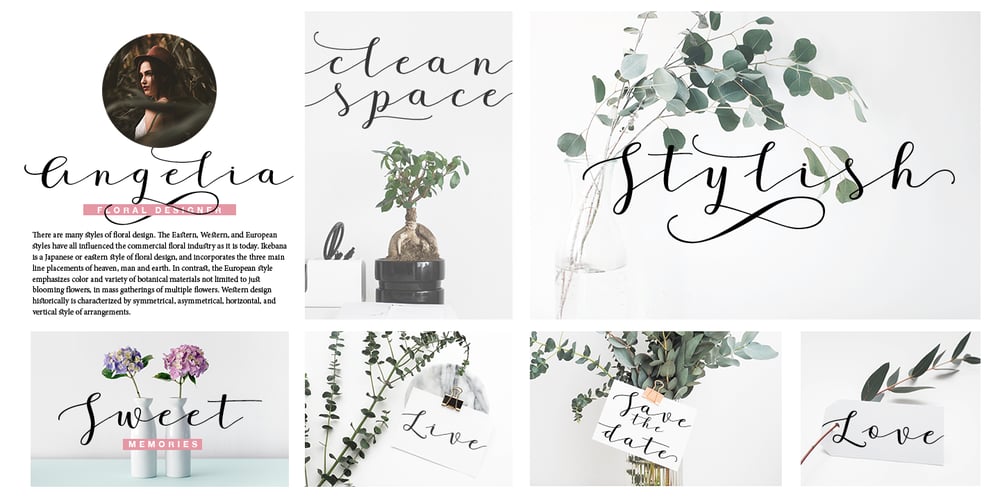
Janges Font Family was designed by published by Supfonts. Janges contains 1 styles and family package options. This handwritten script has been attentively written, with gentle curves to produce a font thats completely distinctive and original. Perfect for adding a elegant and unique touch to your lettering projects and branding Also with their help, you can create a Wedding lettering or beautiful frame for your home. Or just use for your small business, book covers, stationery, marketing, magazines and more. — TTF & OTF versions are available. A lot of Swashes Multilingual Support I hope you have oodles of fun using Janges script! Dmitriy — Check out my blog: instagram.com/media.lab.co pinterest.com/dmitriychirkov7